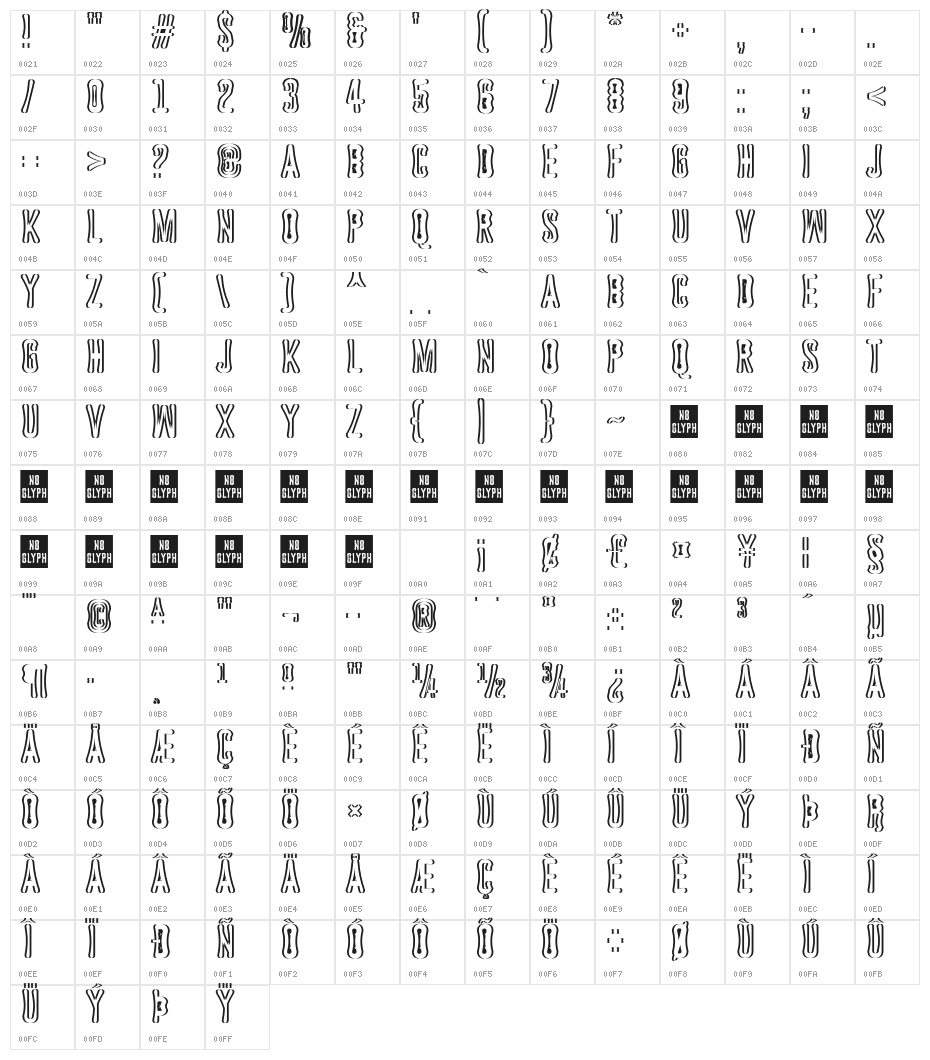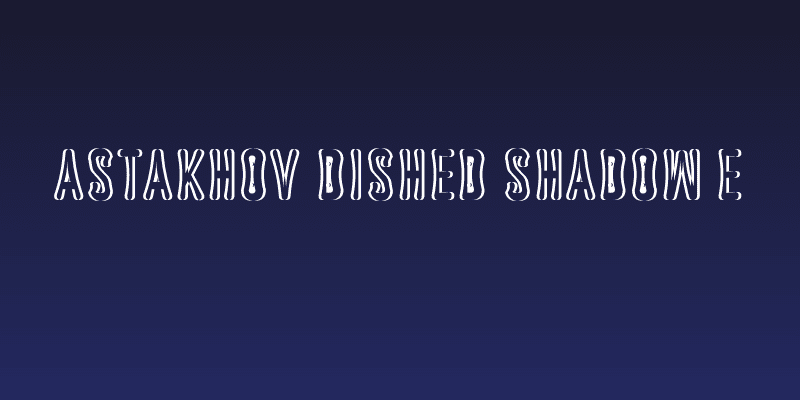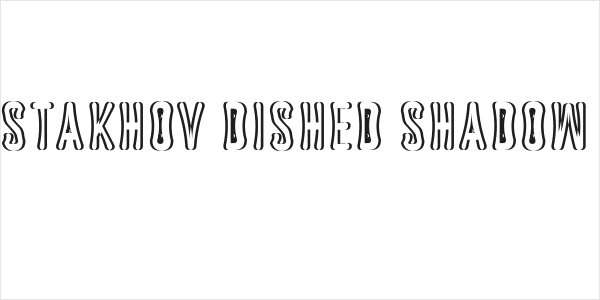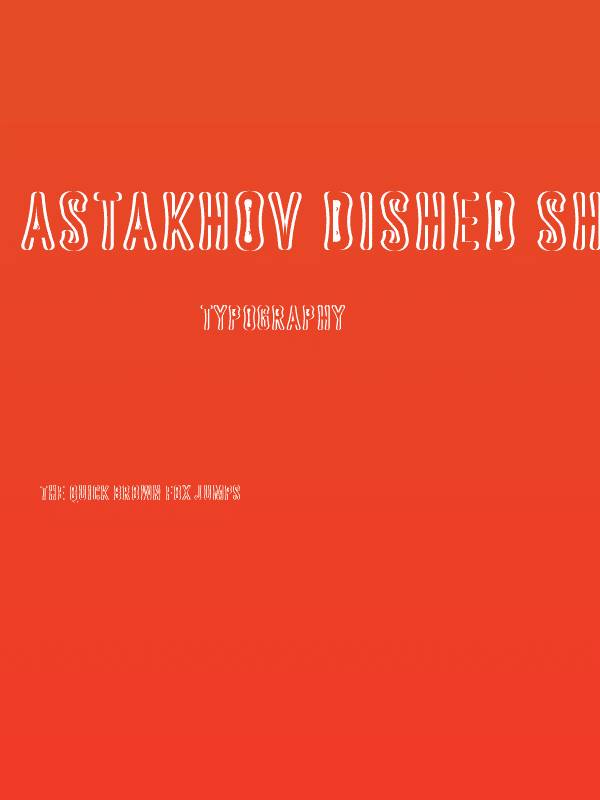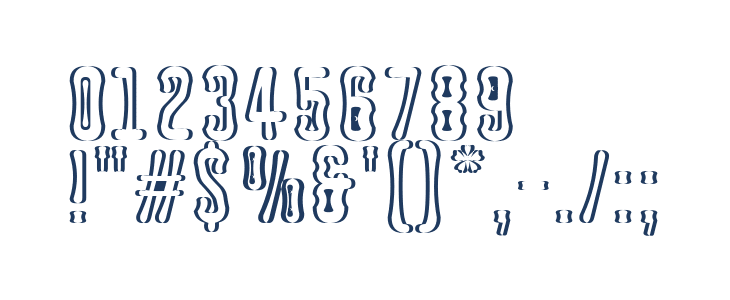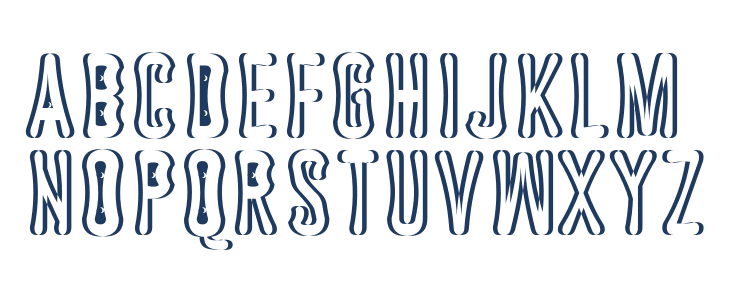
Astakhov Dished Shadow E Font
Astakhov Dished Shadow E Description
This font features a unique shadowed style that gives each character a three-dimensional appearance. The letters are bold and have a distinct outline that creates a shadow effect, adding depth and visual interest. The font maintains a consistent thickness throughout, with rounded edges that soften the overall look. It includes both uppercase and lowercase letters, numbers, and a variety of special characters, making it versatile for different design needs. The playful yet structured design makes it suitable for eye-catching headlines and creative projects.
| Proposed Projects | Ideal for posters, logos, and any design requiring a standout, playful typeface. |